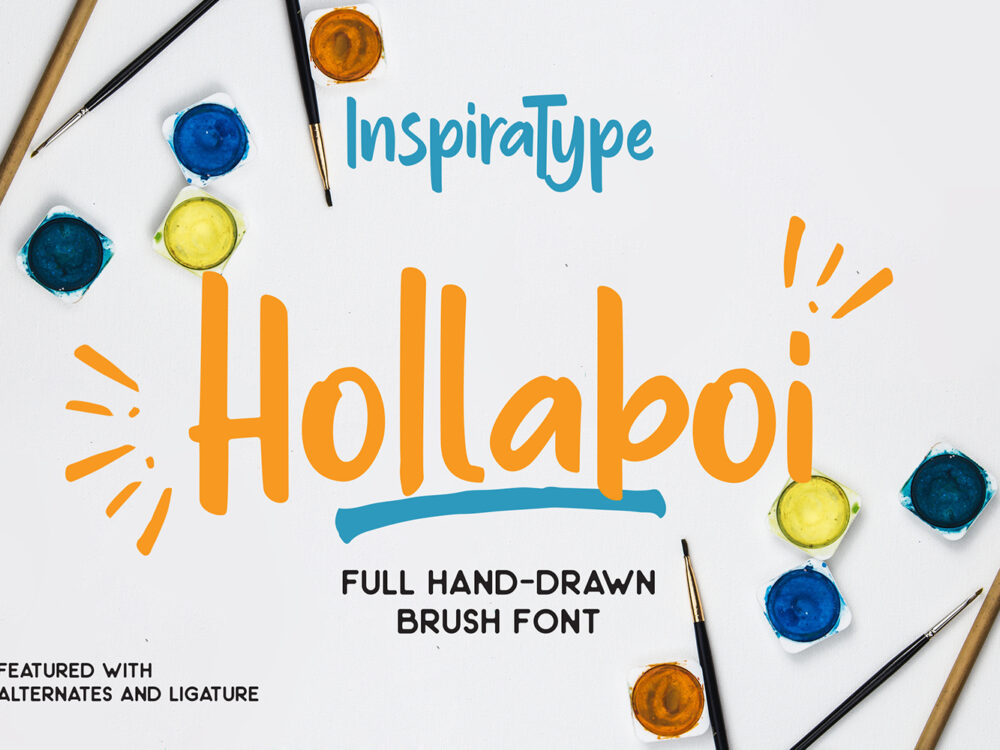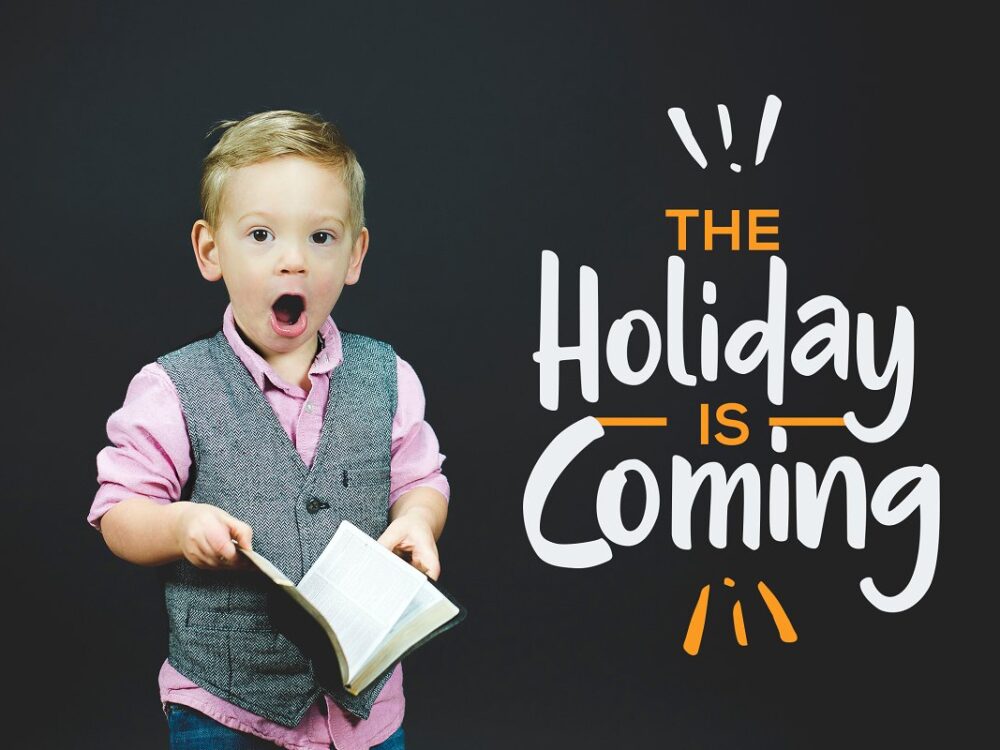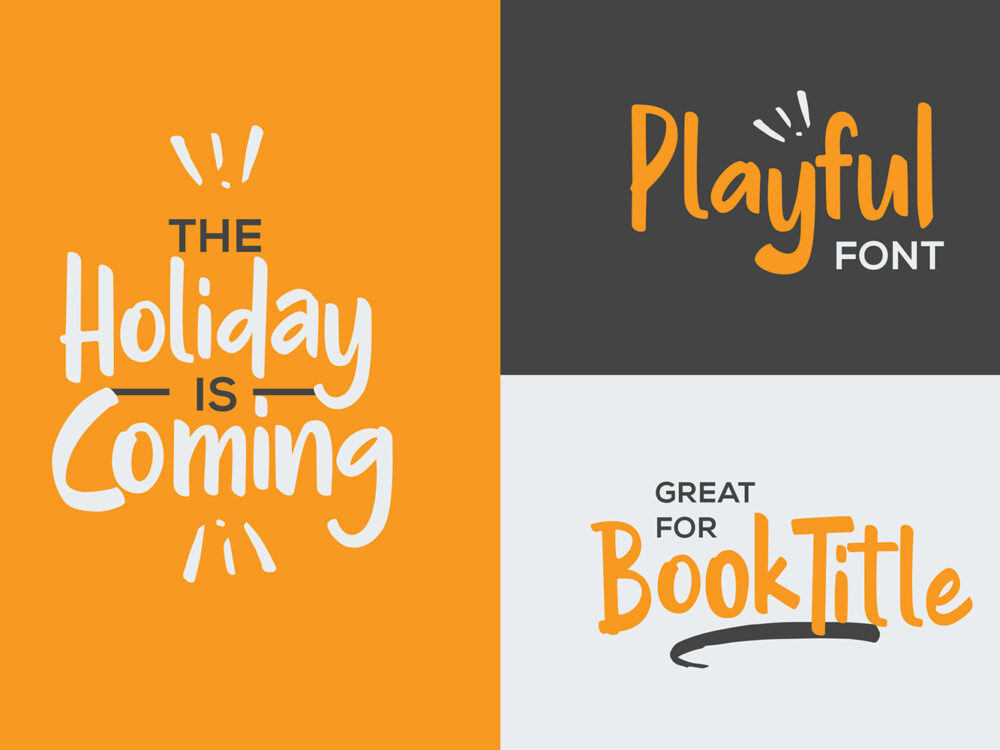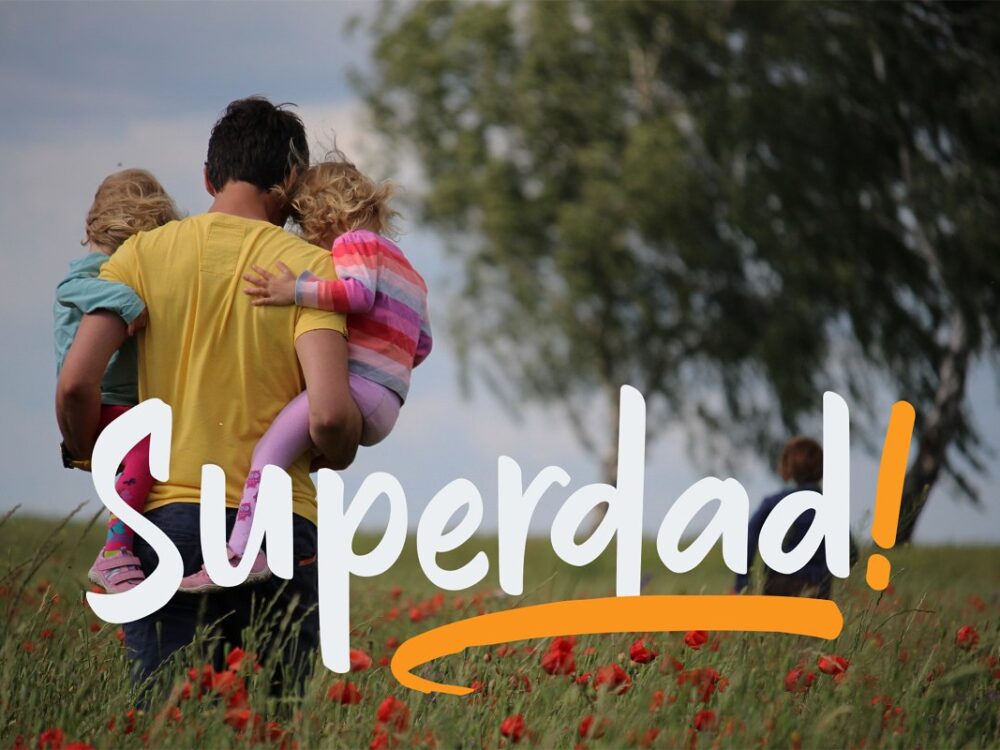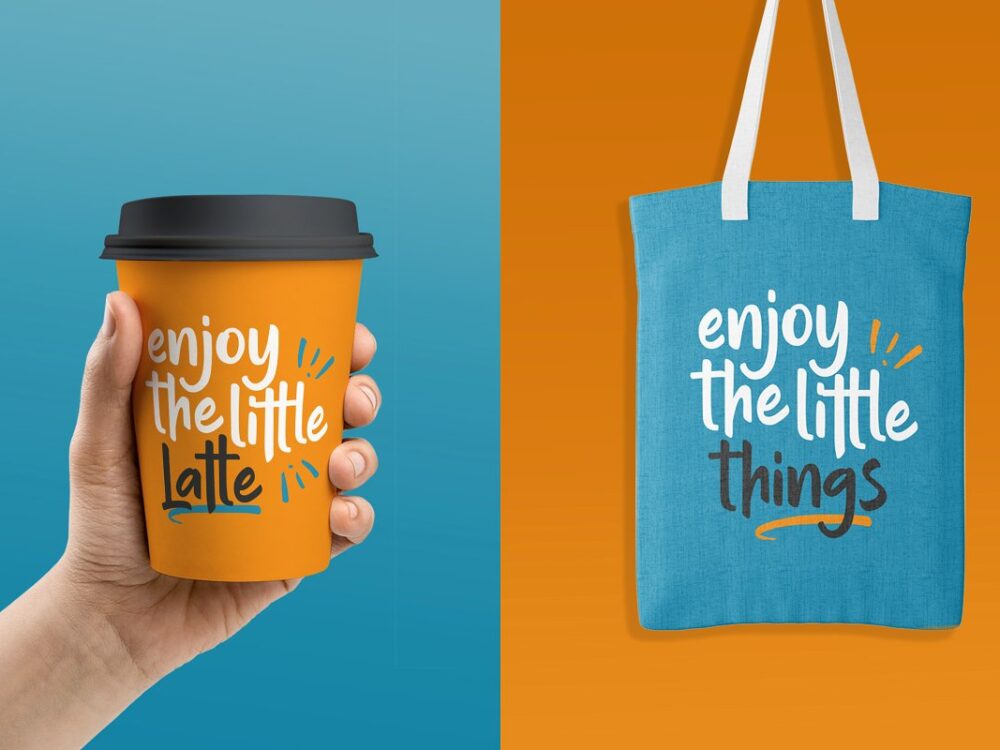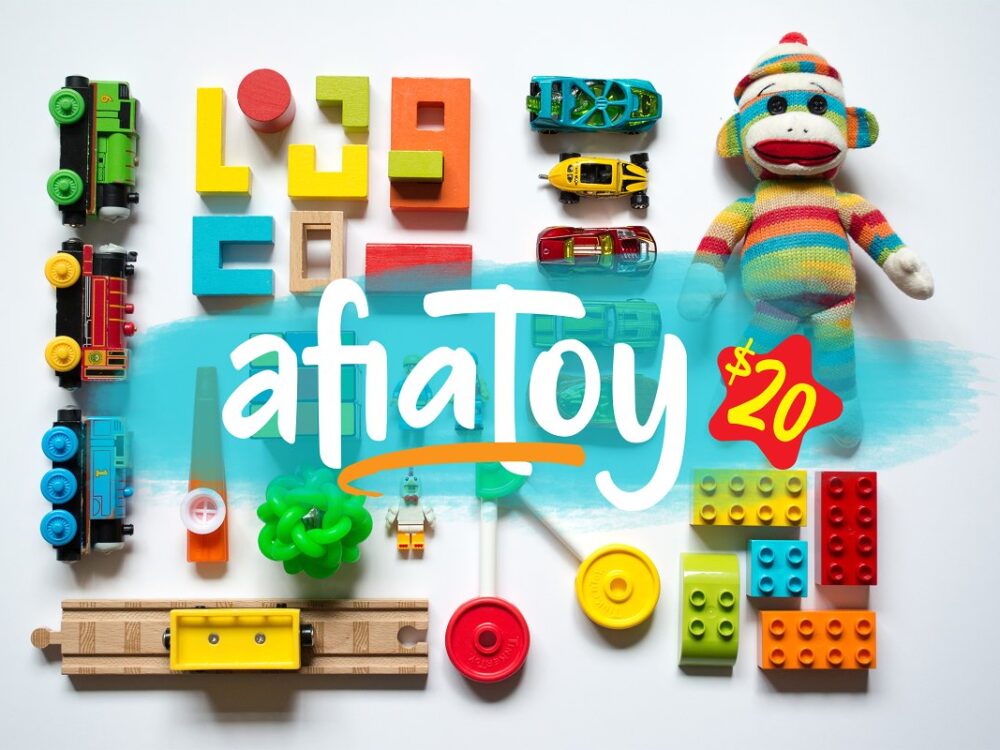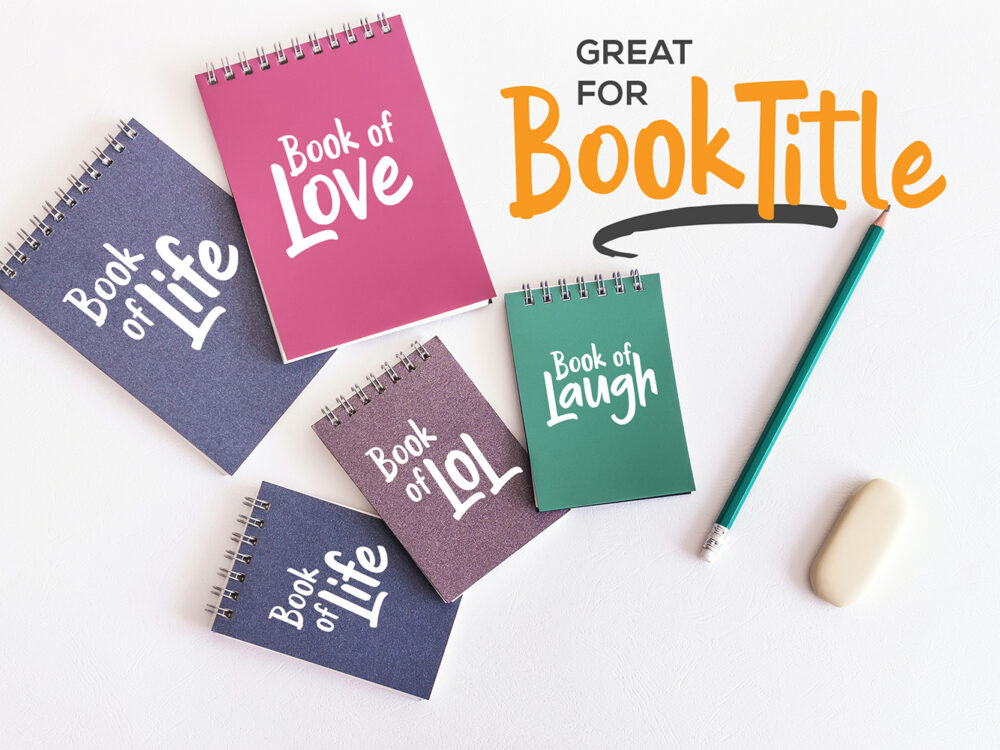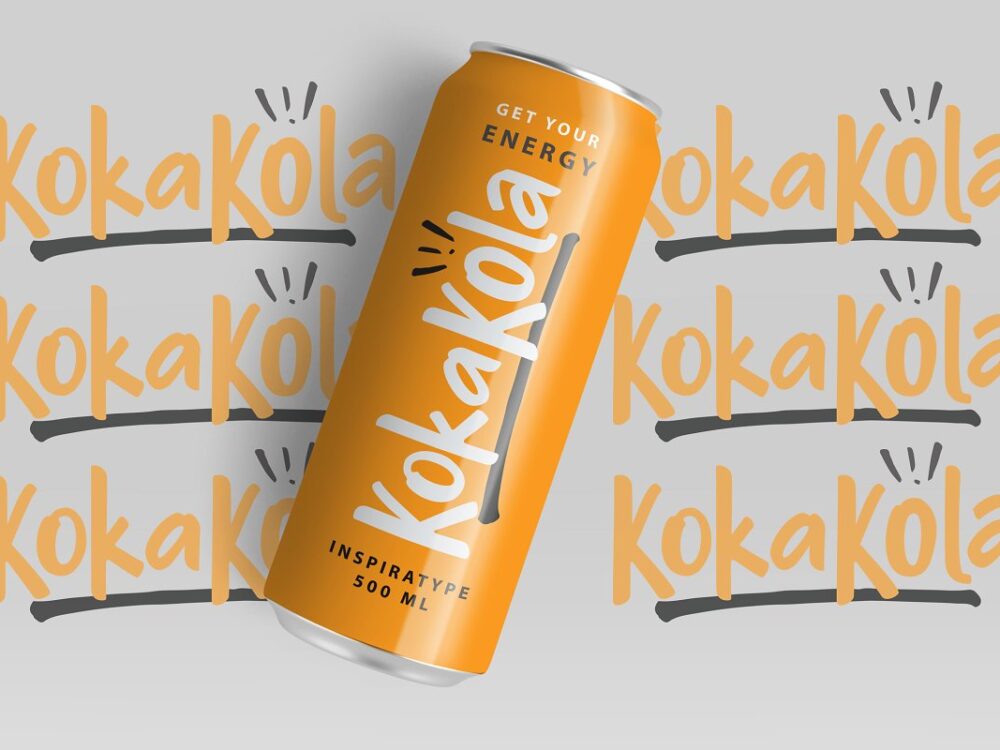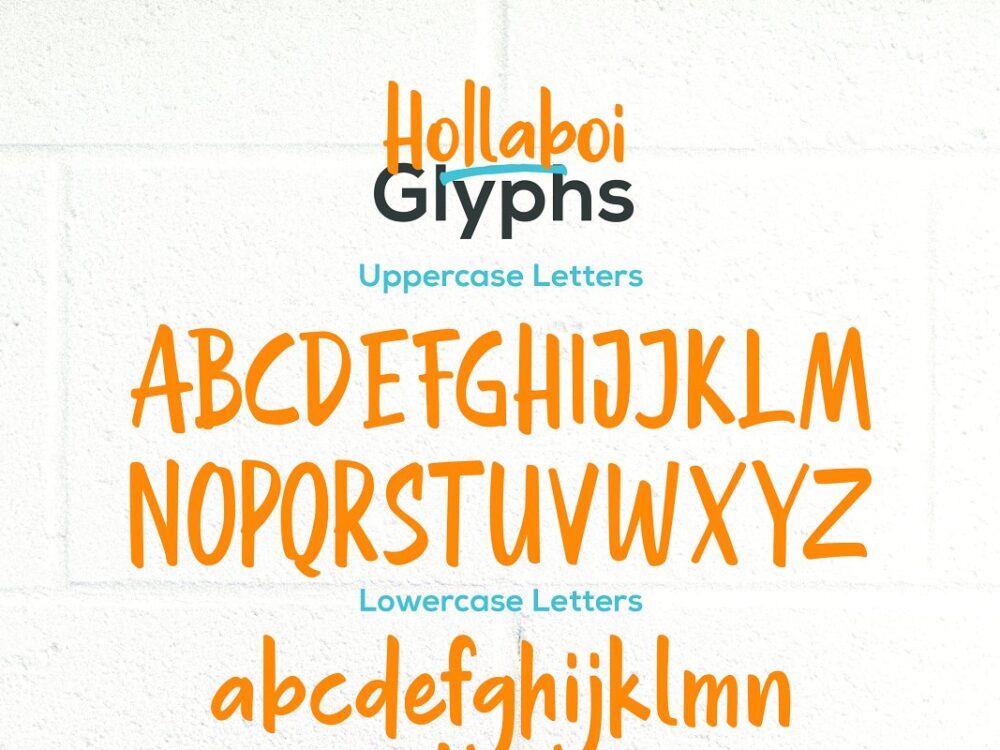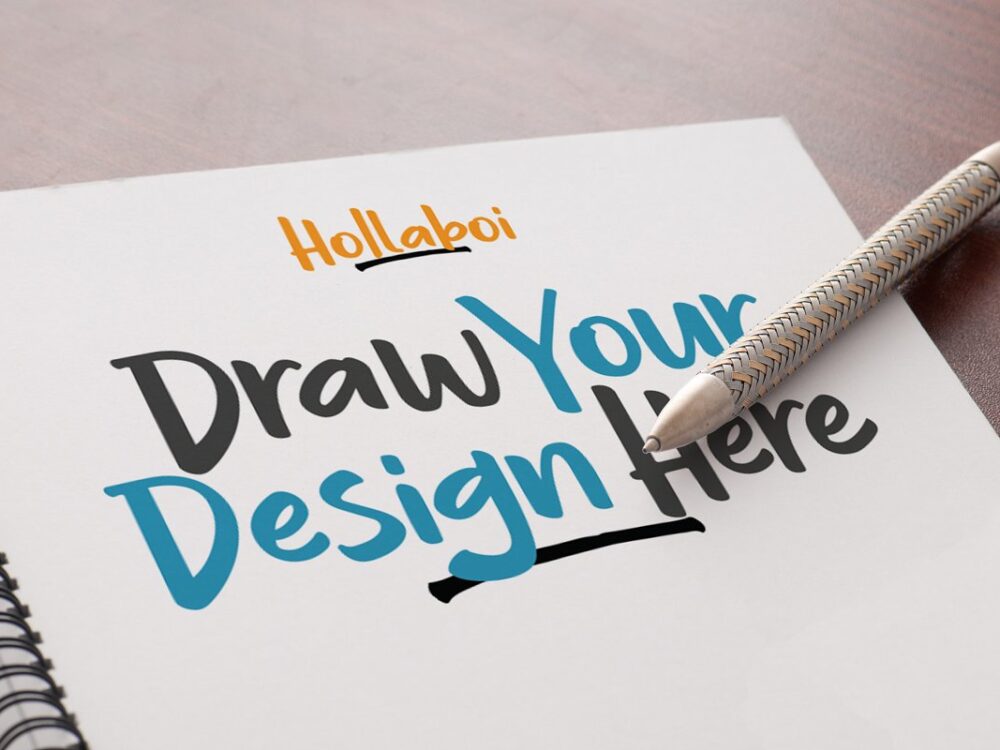
Hollaboy Display Font Demo
Hollaboy Display Font Demo is a fun and interesting font based on children’s books and handwriting. This font works well for a variety of design projects. Use this font to create memorable designs for posters, logos, clothing prints, and more. If you wish to use it for commercial work buy the full version.